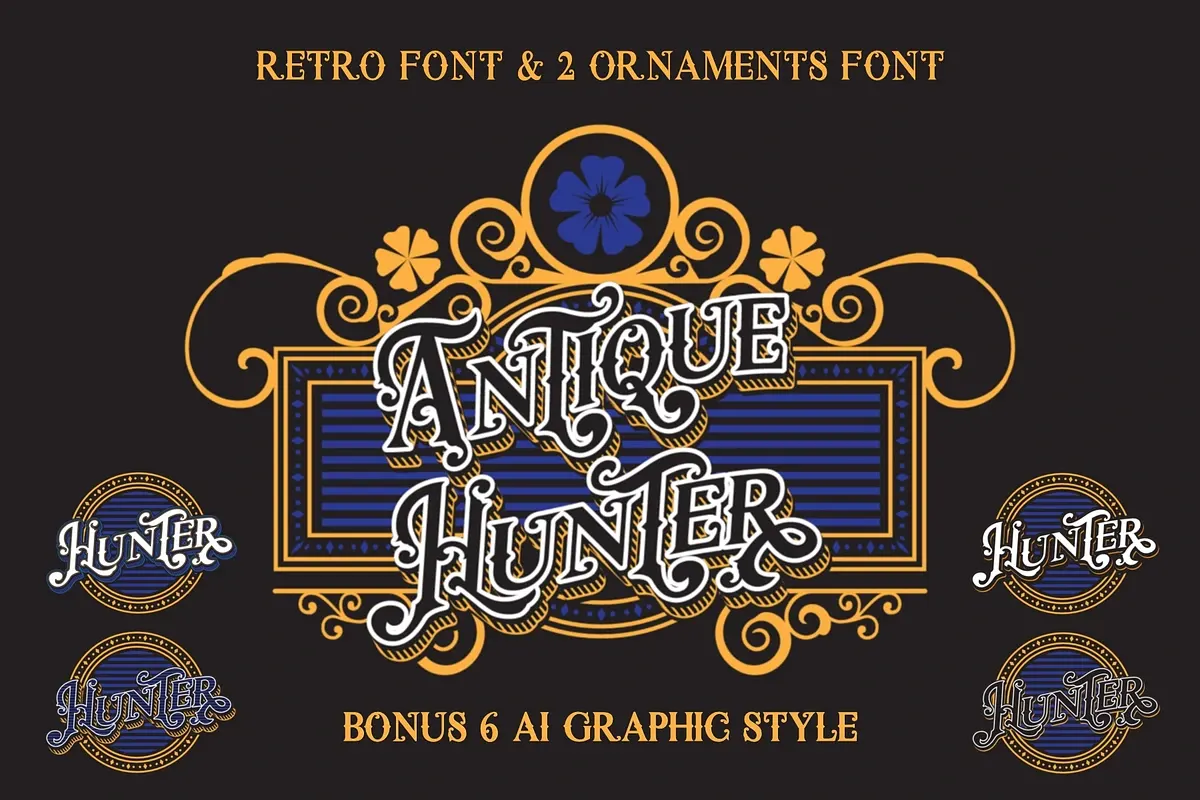
Antique Hunter and Ornaments Fonts Free Download is a beautifully vintage-inspired font duo, perfect for projects that need a classic, handcrafted touch. The serif font offers bold, nostalgic letterforms, while the included ornaments add decorative flair—ideal for logos, signage, packaging, labels, posters, and apparel with a retro or rustic aesthetic.
Whether you're creating an old-school brand identity or adding vintage elegance to modern layouts, Antique Hunter brings character and timeless appeal. Pair it with the custom ornaments for extra impact and authenticity in every design.